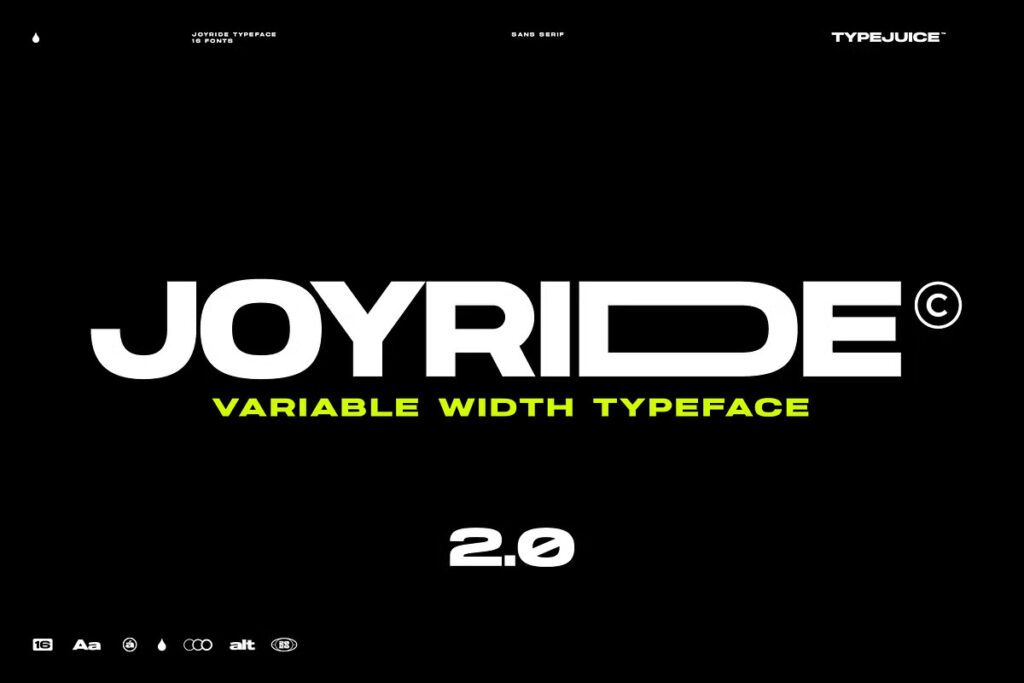
Joyride Extended Typeface: A Versatile Sans Serif with Endless Customisation
Looking for a font that offers versatility, style, and creative control? Introducing Joyride Extended Typeface, a unique sans serif typeface that’s designed to give your projects a modern and customizable edge. With its variable widths and wide selection of styles, this font family offers endless possibilities for creative expression.
Key Features of Joyride Extended Typeface
1. 16 Fonts in 4 StylesJoyride is a robust typeface family with 16 fonts, including both standard and outline versions. Each font comes in different styles, offering flexibility whether you’re working on branding, editorial, or creative projects.
2. Over 300 Alternate GlyphsWith 300+ alternate glyphs and variable widths, Joyride ensures that every design can be unique. The alternate characters give you full creative control, allowing you to mix and match for a completely custom look.
3. Extensive Glyph SetJoyride boasts over 4000 glyphs, providing multilingual support and making it ideal for global projects. Whether you’re designing for web, print, or digital media, this typeface adapts to your needs.
4. Perfect for Creative ProjectsThanks to its extended variable width and alternative glyphs, Joyride is perfect for projects that require a modern, edgy feel. It’s ideal for logos, headlines, posters, and other display typography where a bold, eye-catching look is key.
Why Choose Joyride Extended Typeface?
Versatile with 16 fonts and 4 styles
Creative control with over 300 alternate glyphs
Includes Uppercase, Lowercase, and Multilingual Support
Perfect for modern and bold designs
Ideal Uses for Joyride Extended Typeface
Branding and Logos
Posters and Flyers
Editorial Design
Social Media Graphics
Web and Print Design
Bring your creative projects to life with the Joyride Extended Typeface. Its extensive features make it a must-have in any designer’s font collection.